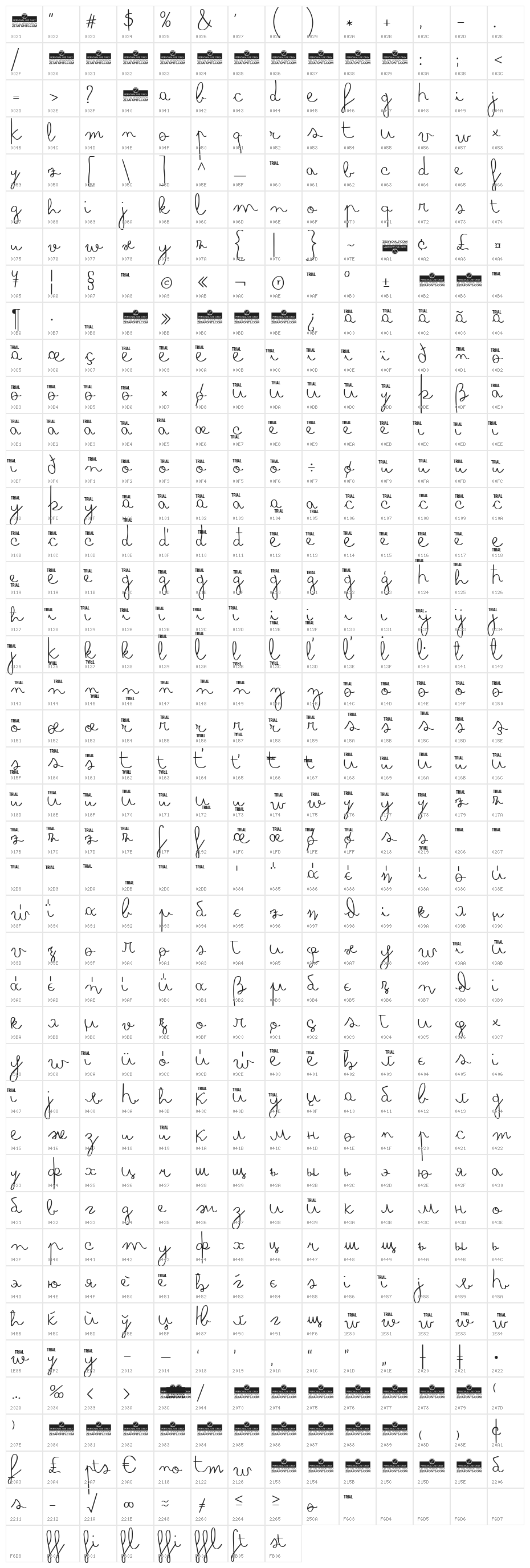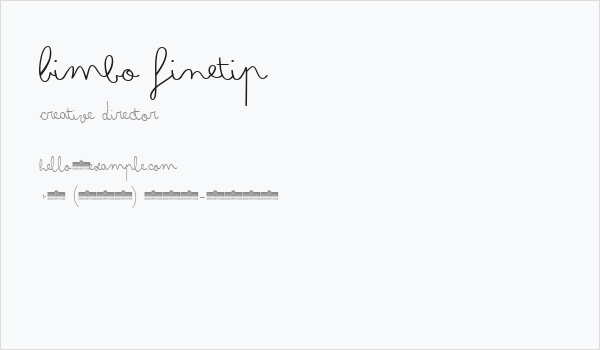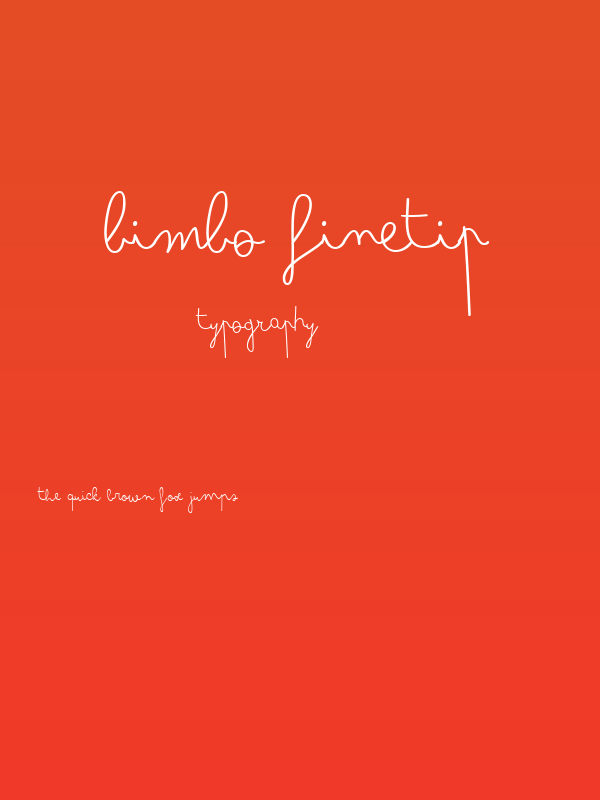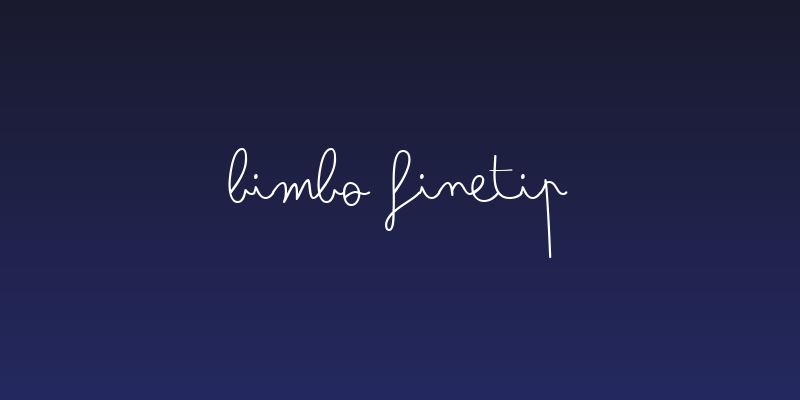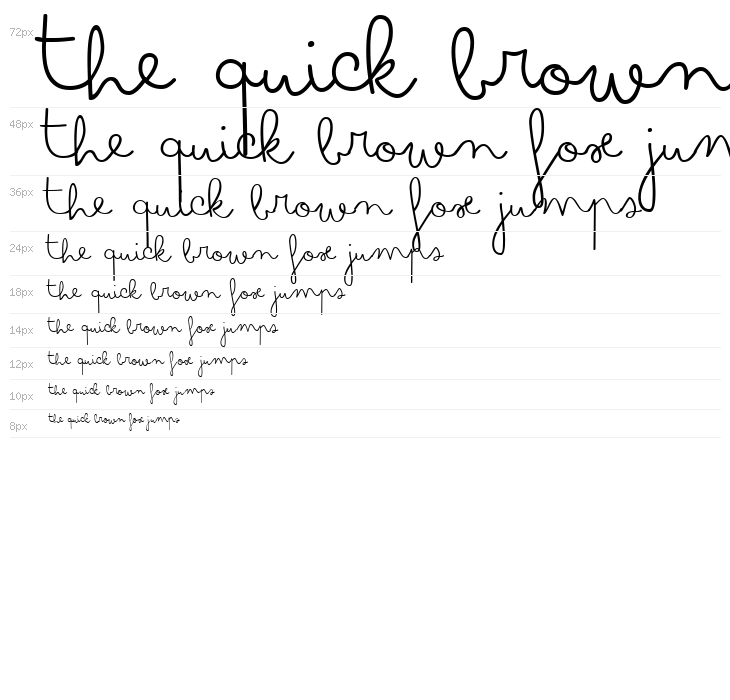
Bimbo Finetip Font
Bimbo Finetip Description
This font features a playful and whimsical handwritten style with a fine, delicate line weight. The characters are connected, giving it a cursive appearance, yet maintain a clear readability. The strokes are smooth and fluid, with a consistent flow throughout the alphabet. It exudes a casual and friendly vibe, making it suitable for informal and creative projects. The font includes both uppercase and lowercase letters, numerals, and a selection of special characters, all maintaining the same cohesive style.
| Proposed Projects | Ideal for greeting cards, invitations, personal branding, and creative projects that require a friendly and informal touch. |